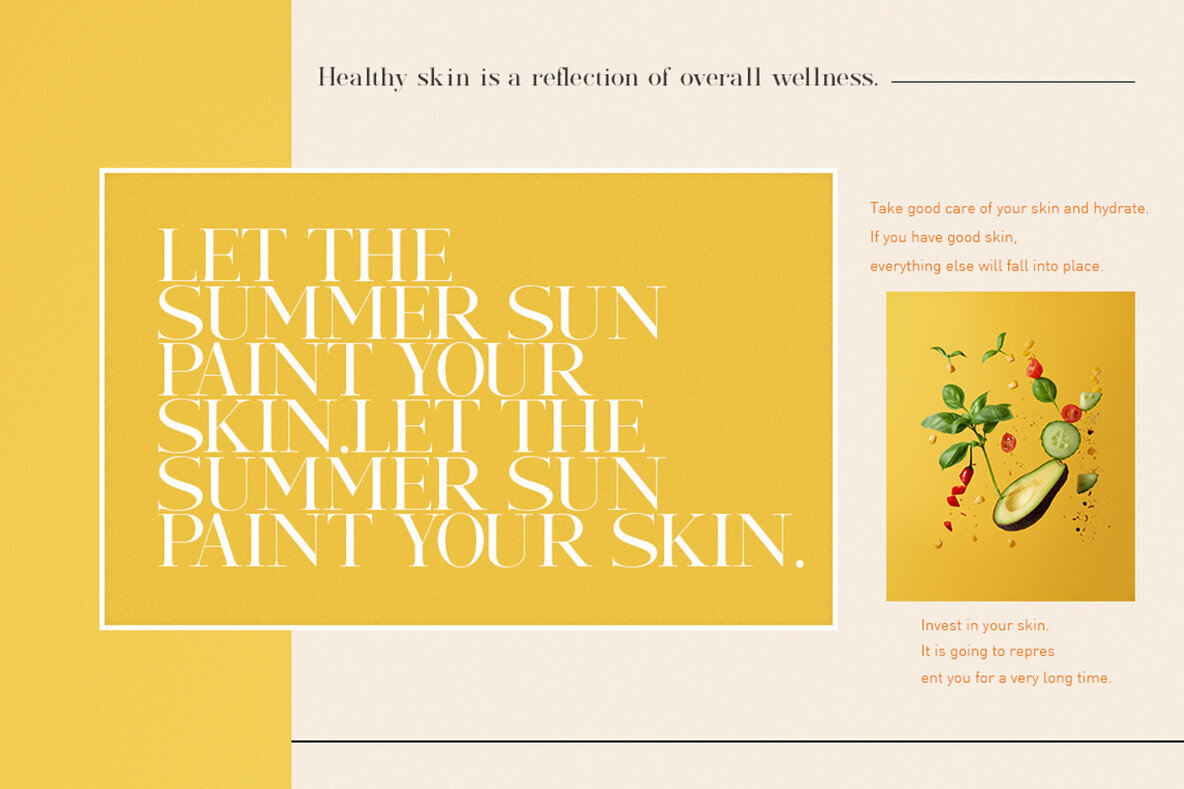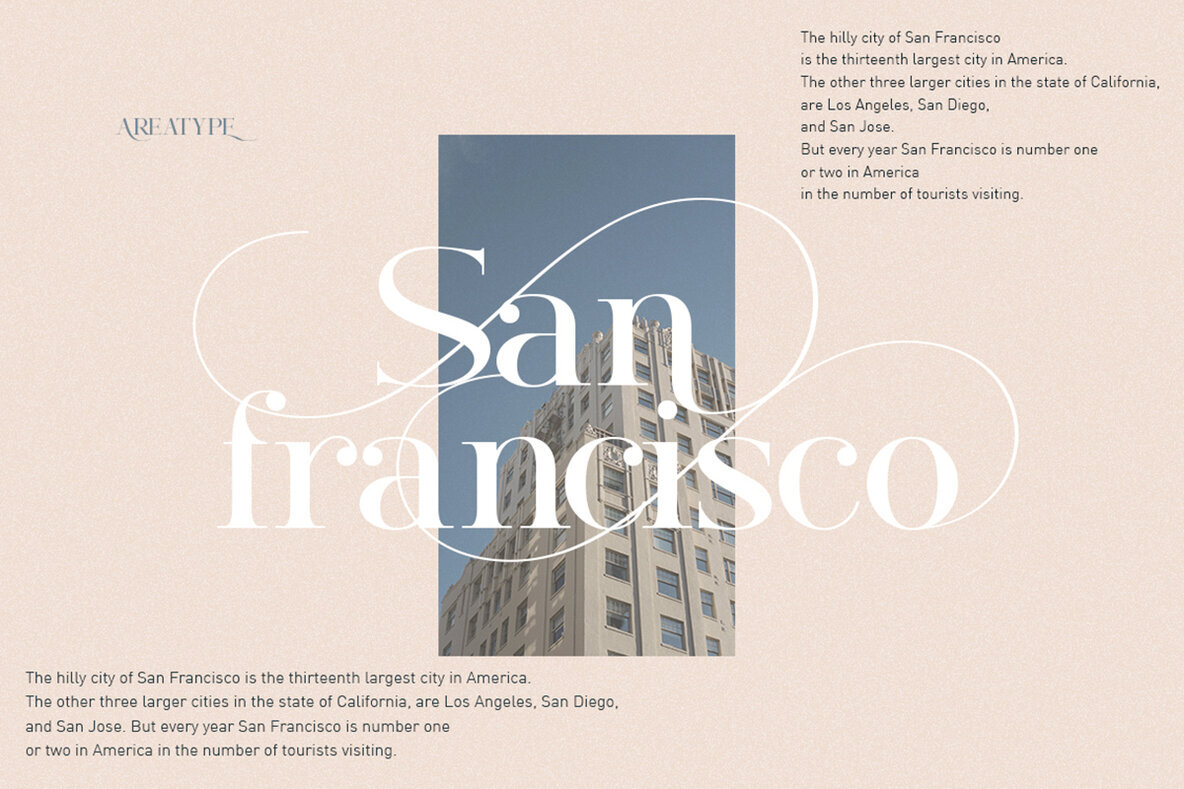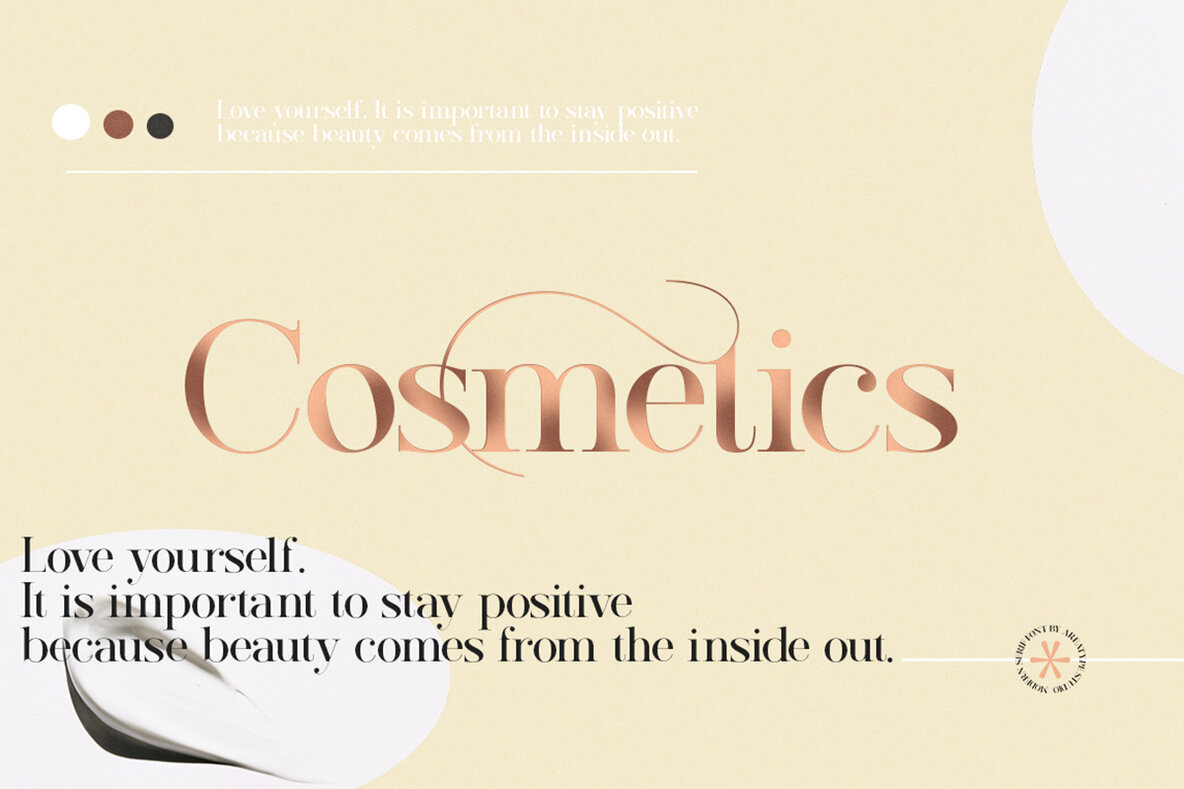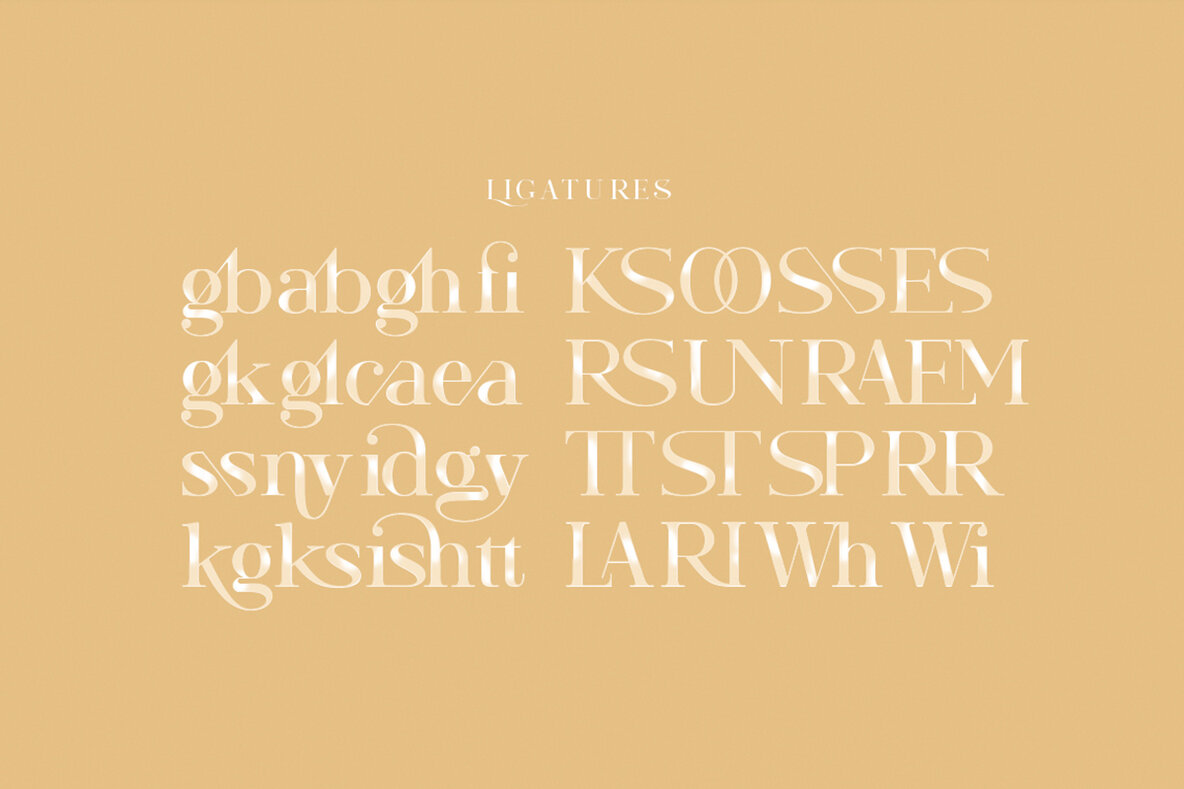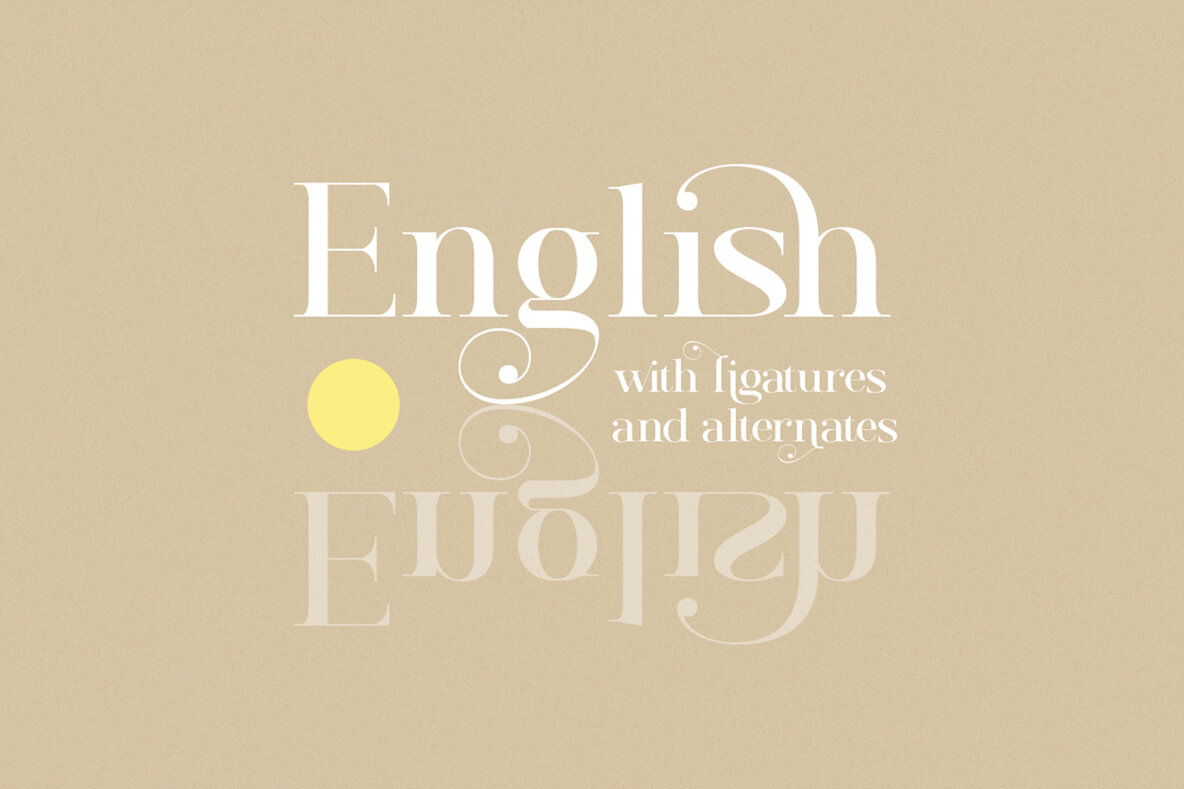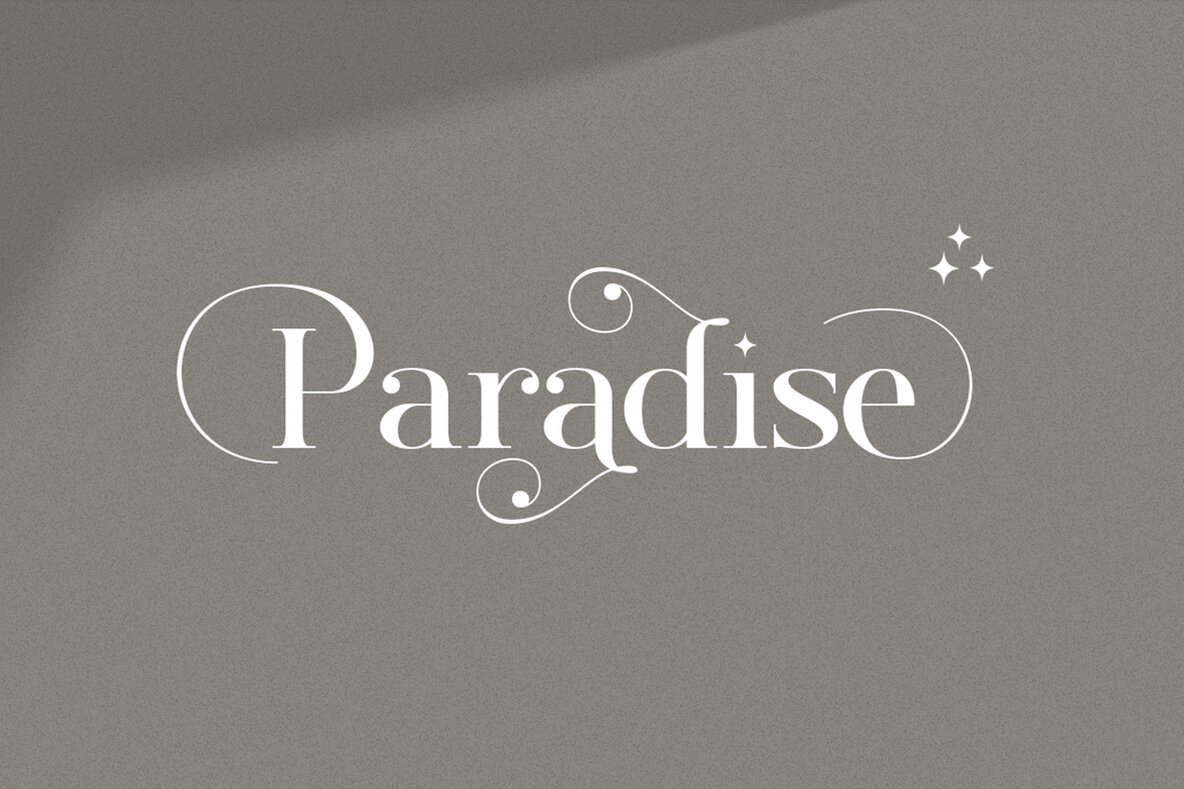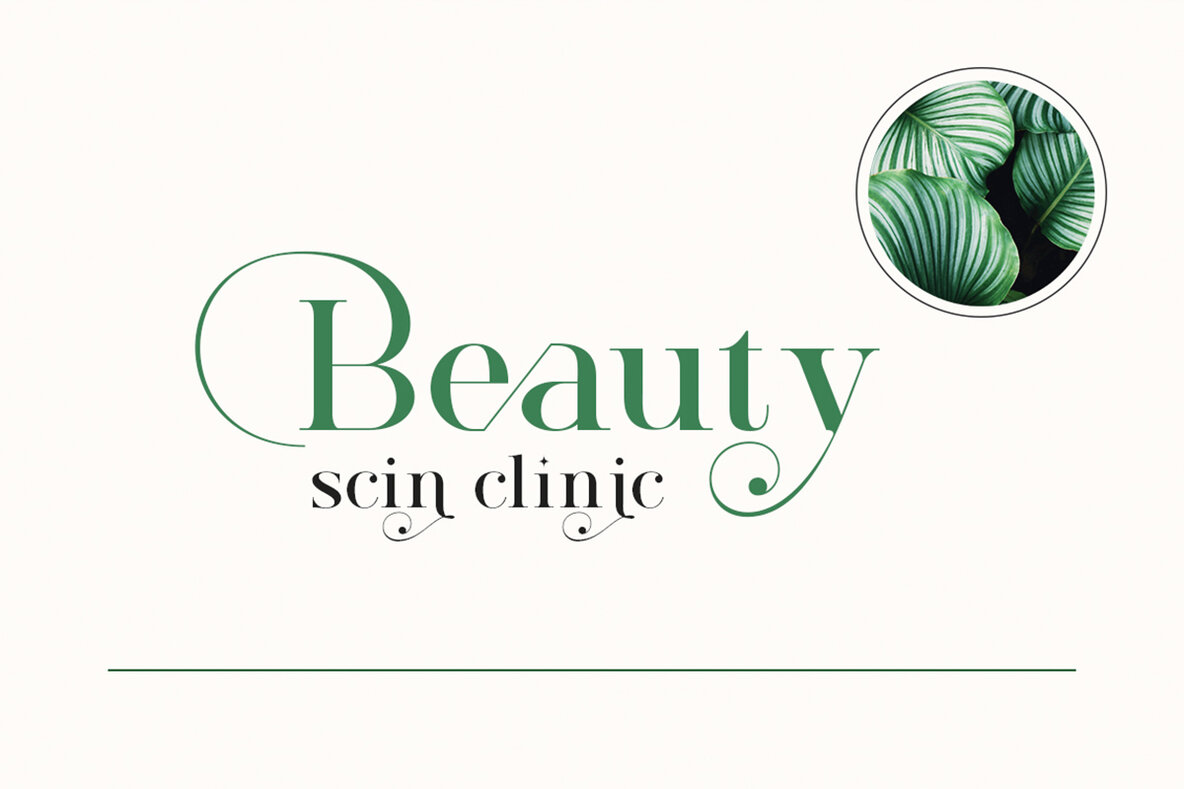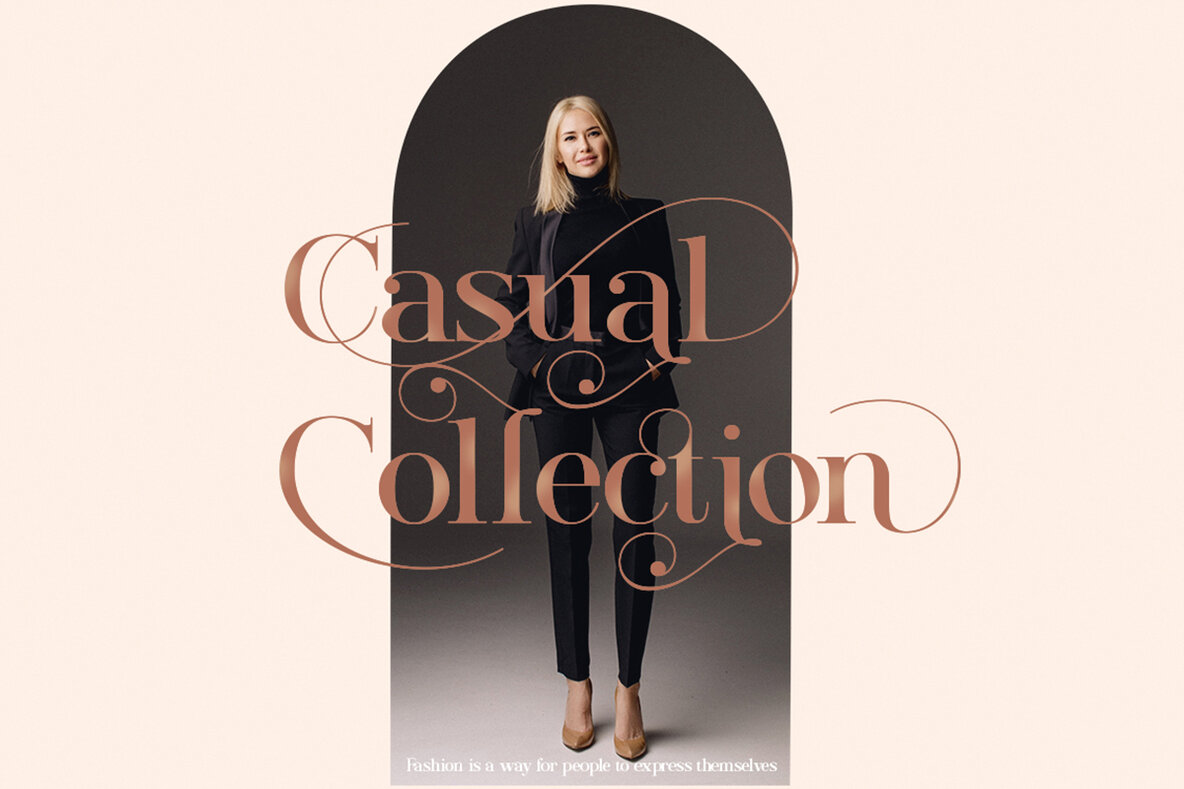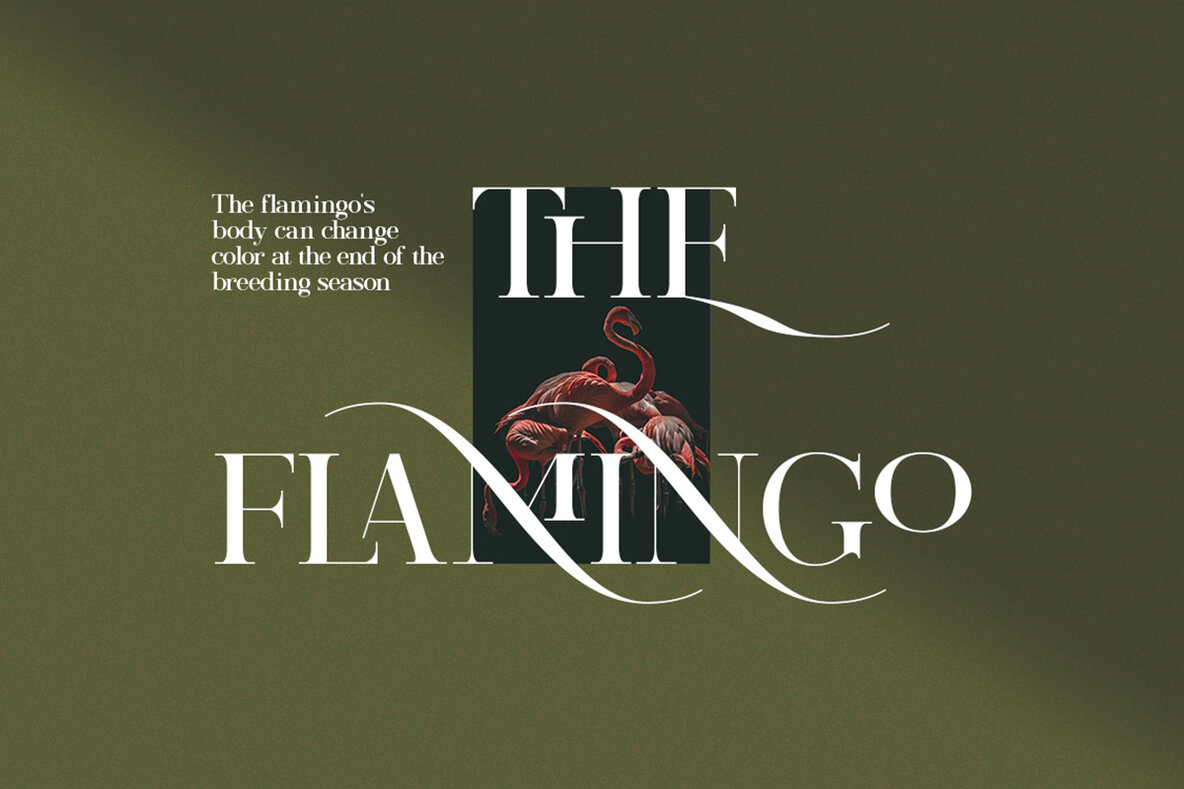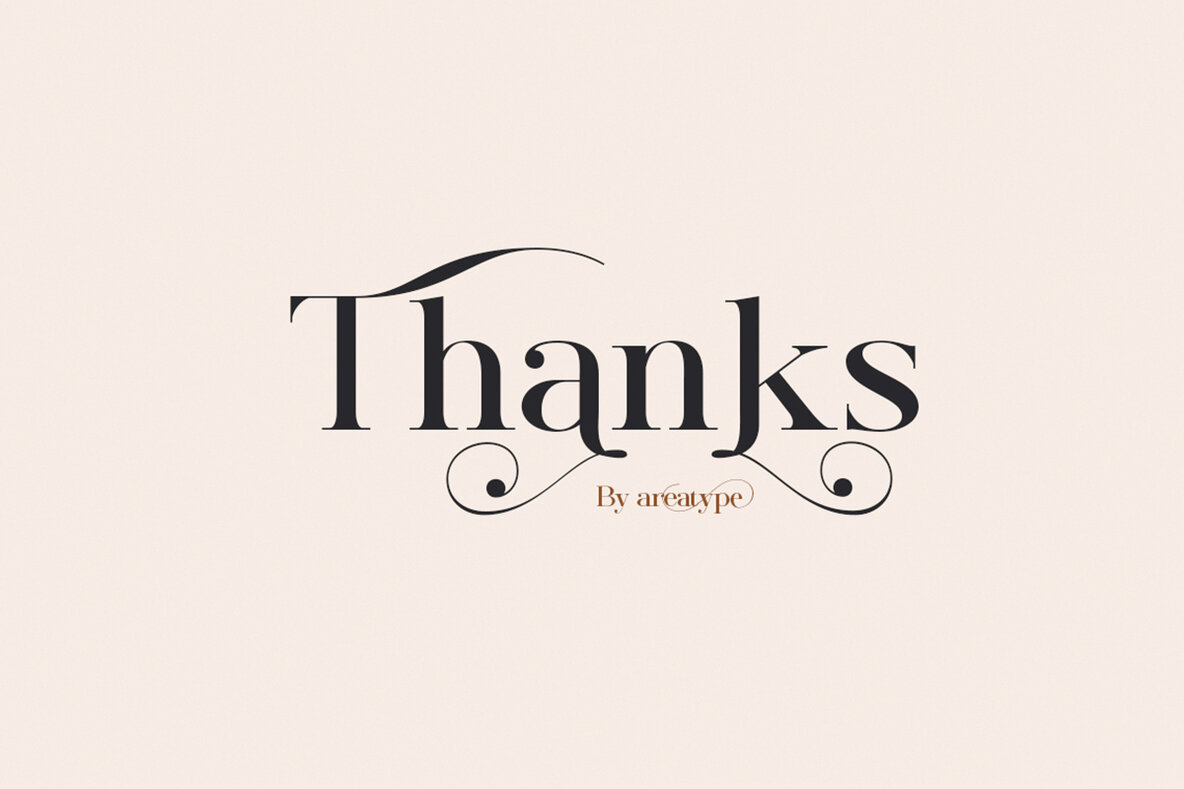
Morissa Font
Morissa Regular
Morissa is a multifaceted font that caters to a broad spectrum of design needs. Its adaptability allows it to transition seamlessly from magazine images to wedding invitations and branding projects to poster designs. This distinctive typeface elevates any project with its refined elegance.Morissa: A Versatile Typeface for Sophisticated Designs